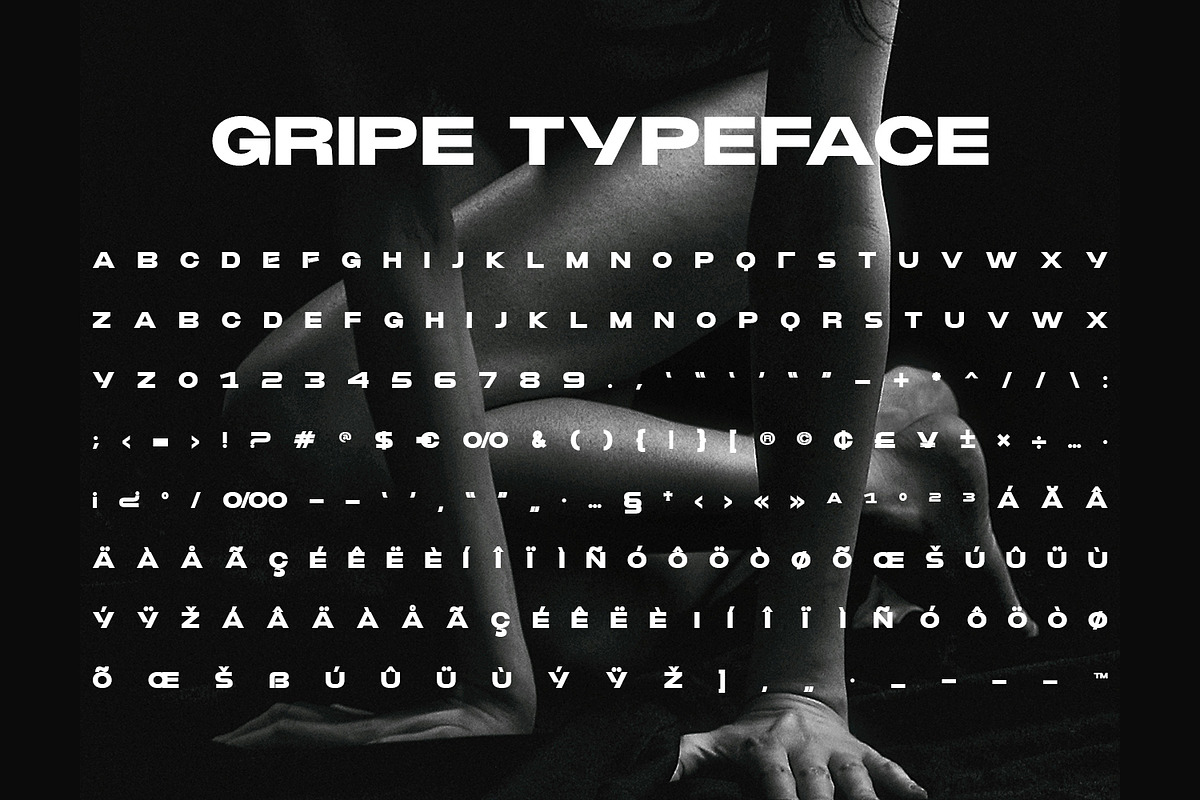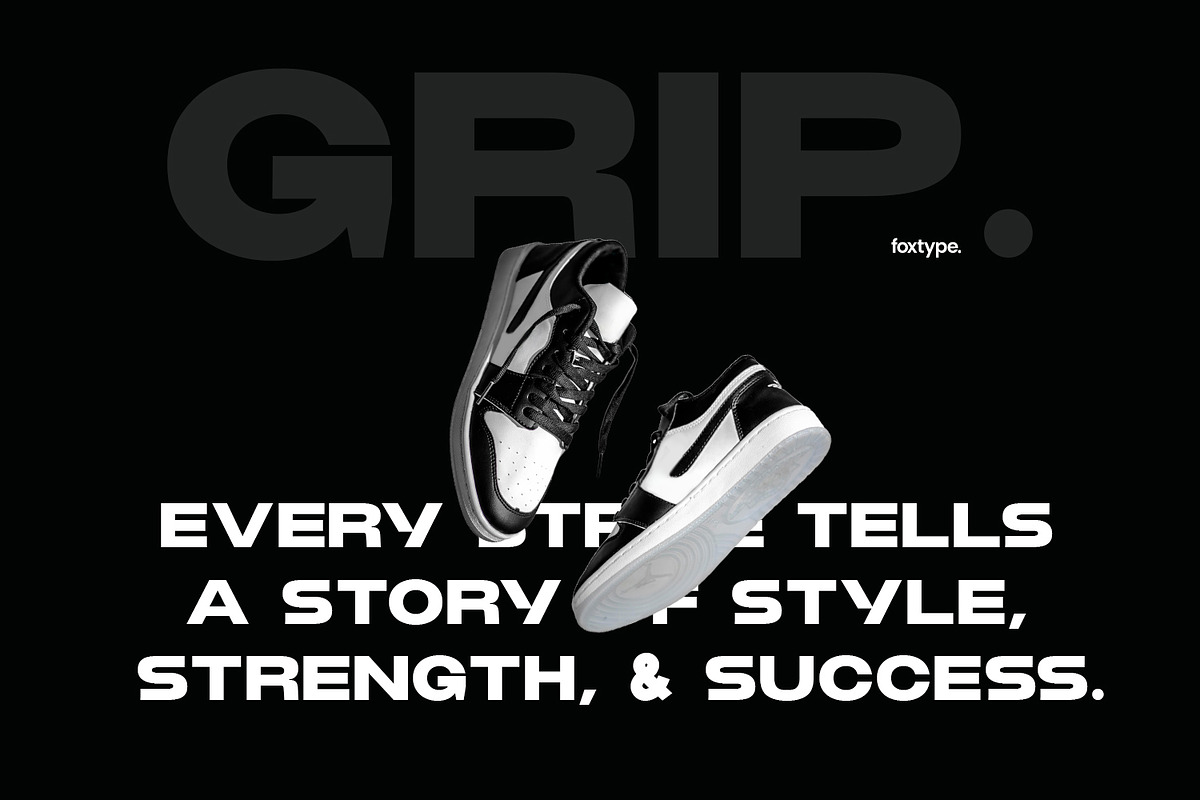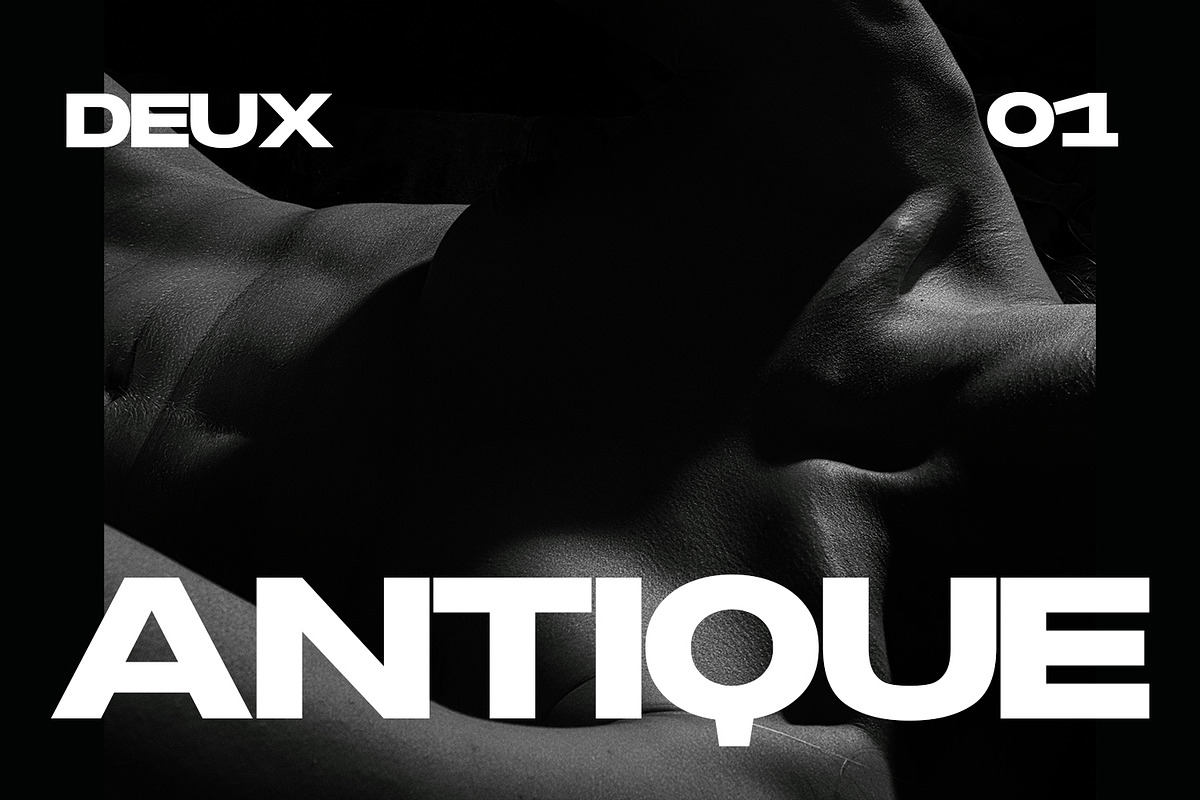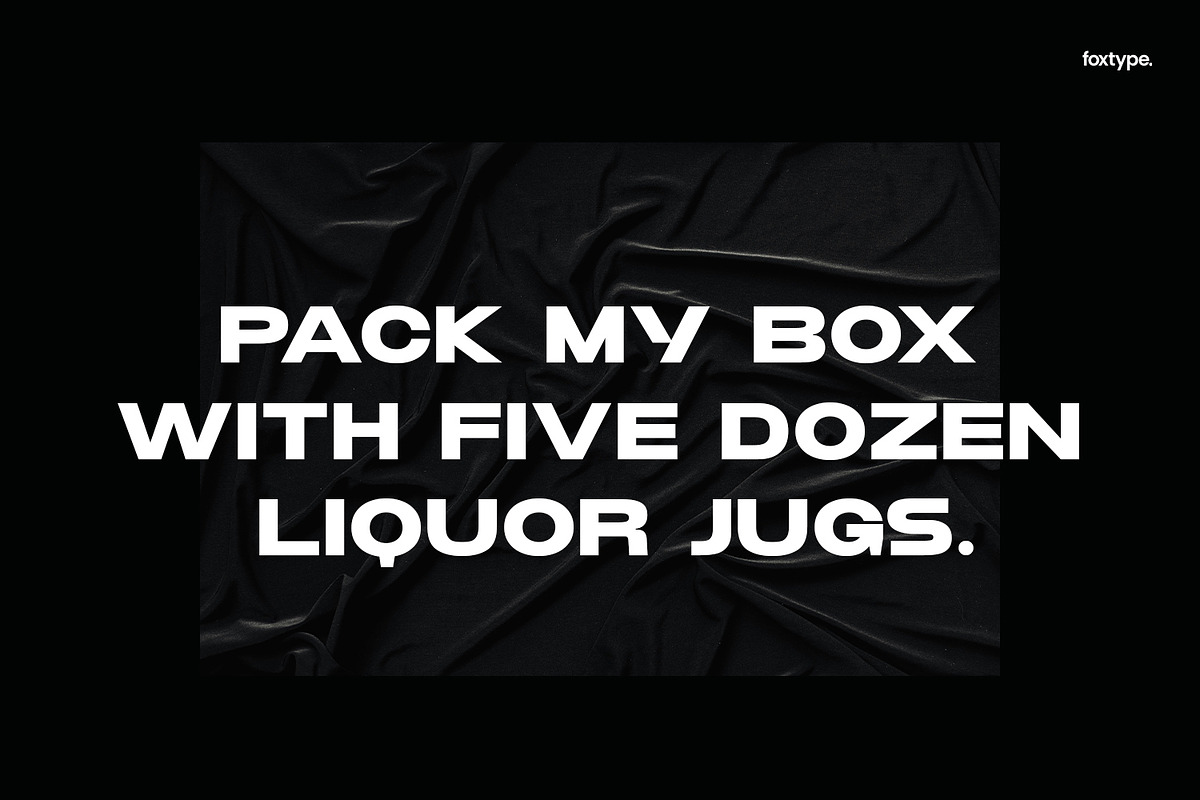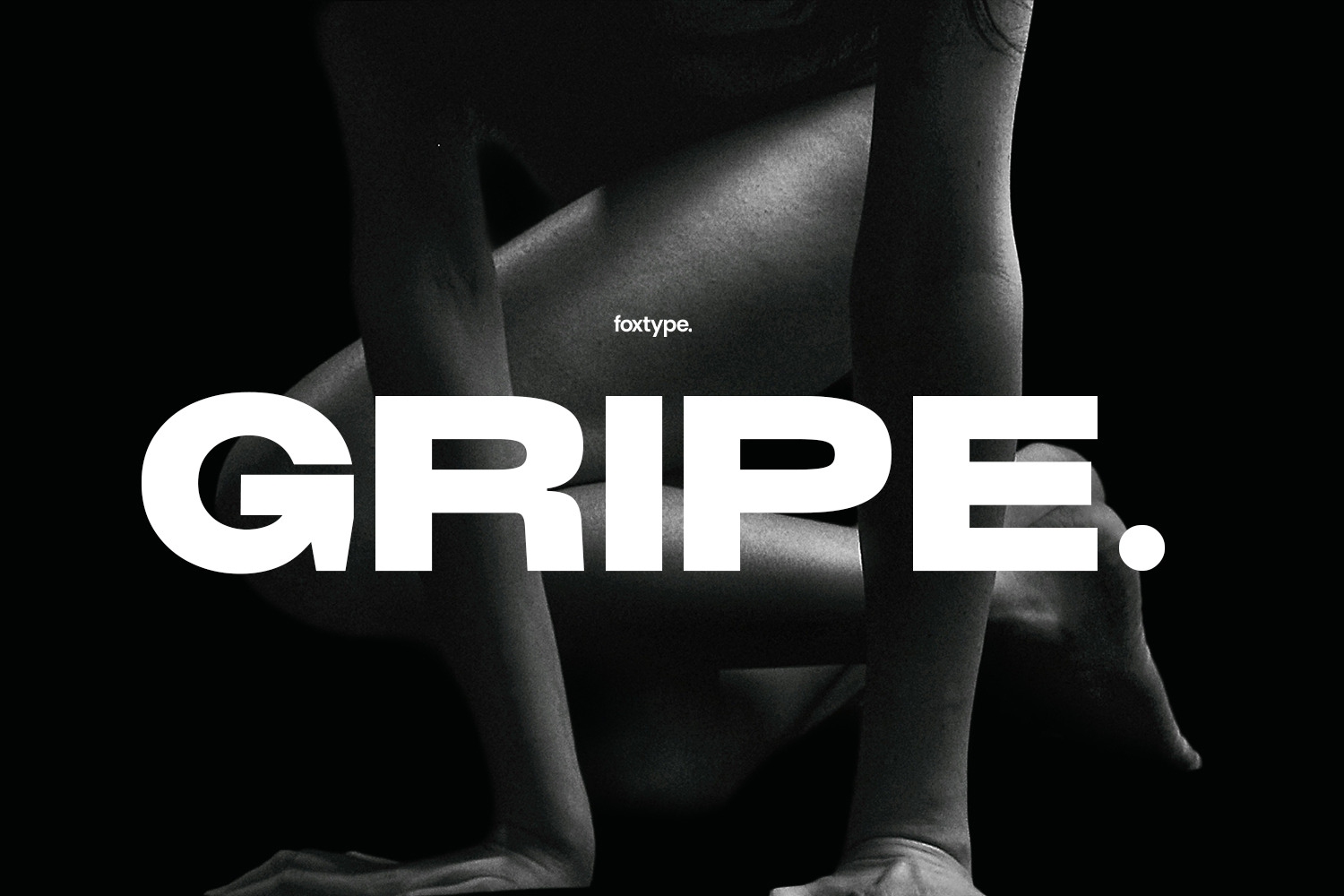
Gripe Typeface
Gripe is a striking, modern display typeface built to command attention. Designed with strong geometric forms and confident proportions, it delivers a powerful visual voice that stands out across branding, editorial layouts, and large-scale compositions.
Crafted with precision and tested for consistency, Gripe balances sharp structure with subtle character, making it both versatile and unmistakably bold. Whether you're designing impactful posters, eye-catching headlines, or distinctive brand identities, Gripe ensures your message is seen and remembered.
* Clean, bold, and modern display style
* Perfect for branding, posters, headlines, and editorial design
* Carefully crafted and thoroughly tested for performance
Gripe isn’t just a font—it’s a visual attitude.